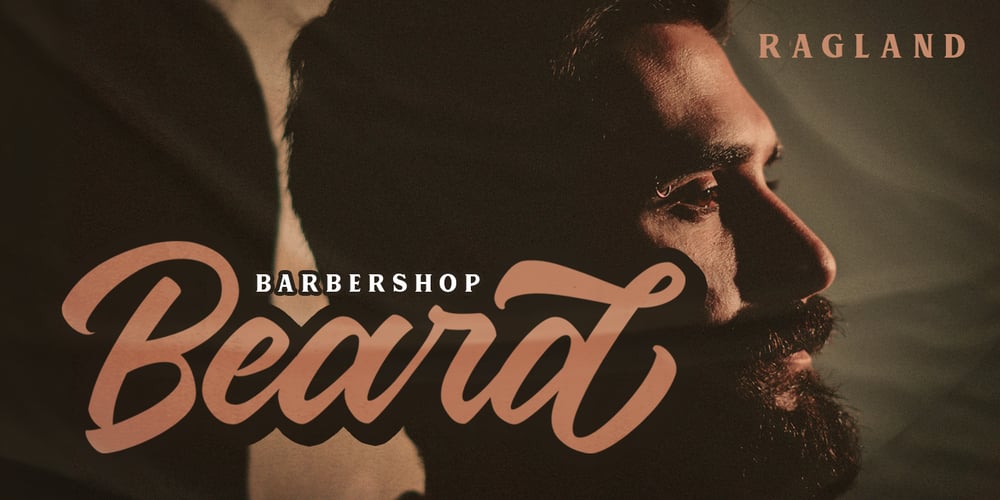
Ragland
Ragland font
Ragland Font Family was designed by Salman Mashudi and published by Hasta Type. Ragland contains 1 styles and family package options. Ragland has a unique vintage look that will create and inspire awesome retro-looking projects! This font is awesome for your creative project such as Logotype, Branding, Packaging, Poster, Merchandise, label, and much more.